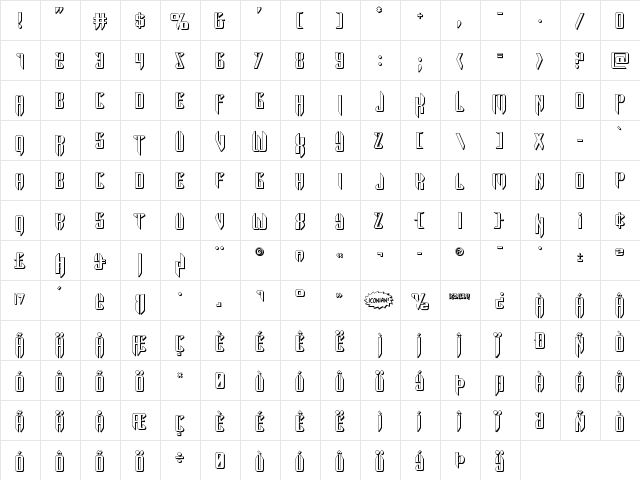
The Immortal 3D Regular
Design Context for The Immortal 3D Typeface
The Immortal 3D is a composed and adaptable typeface that performs quietly and consistently across a wide range of design contexts.